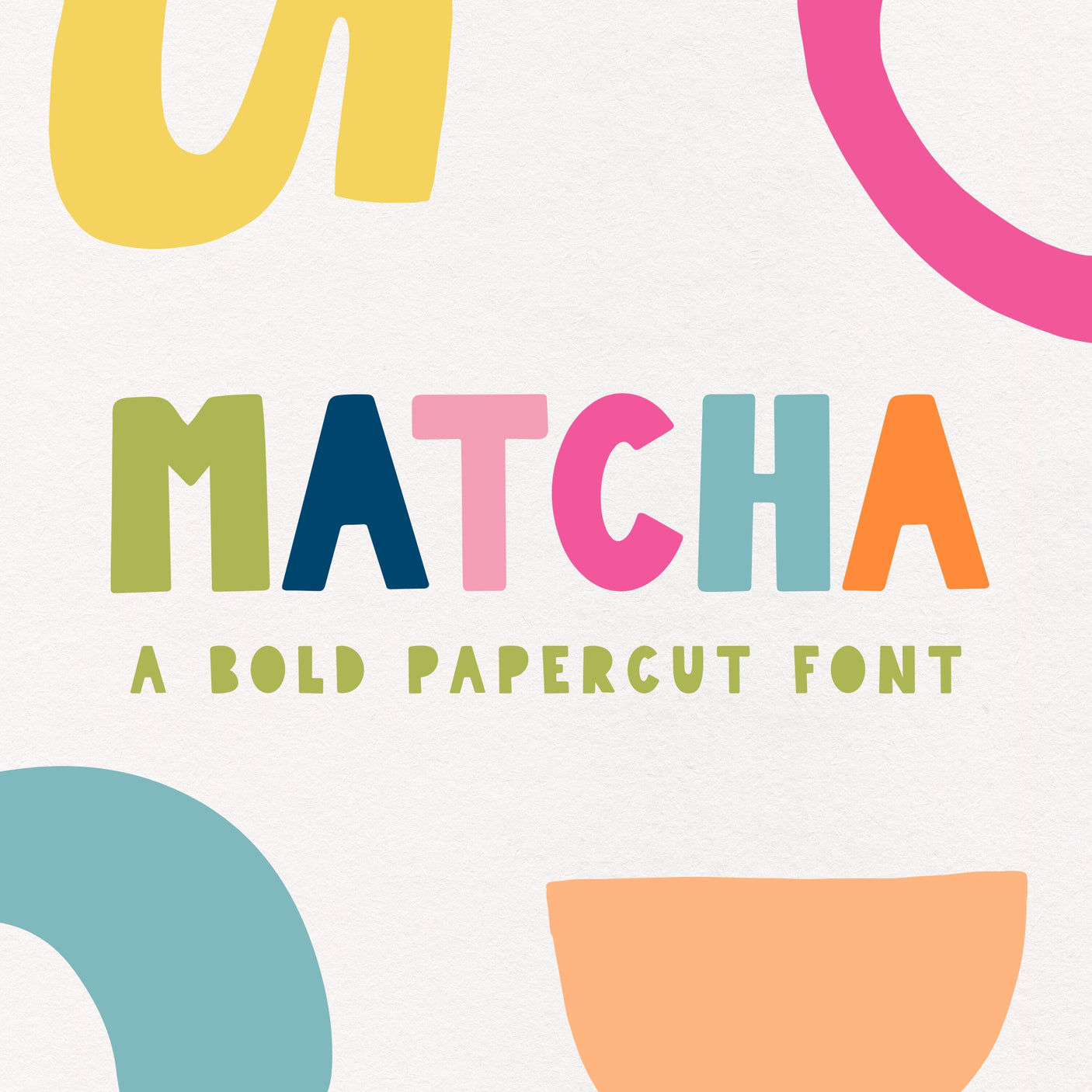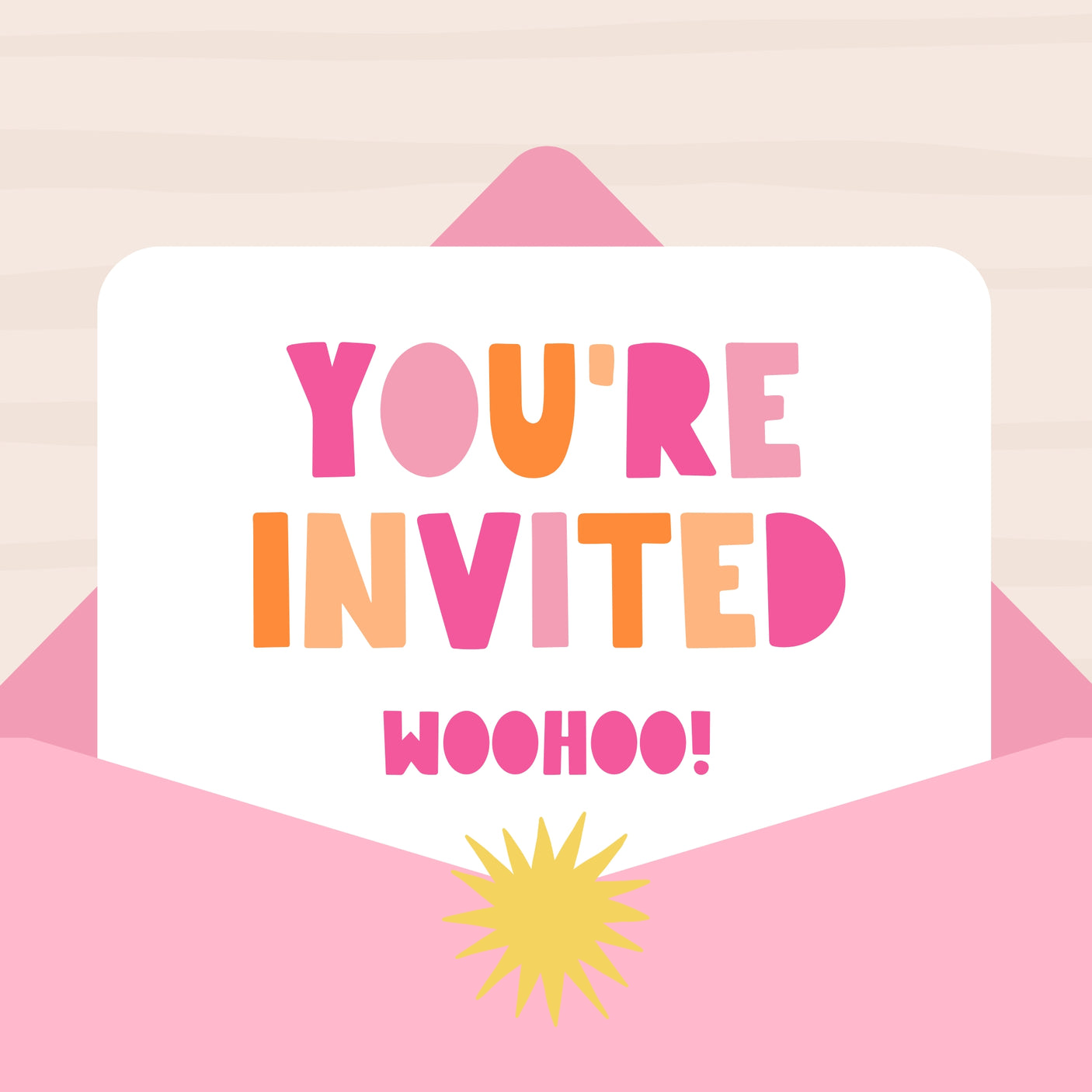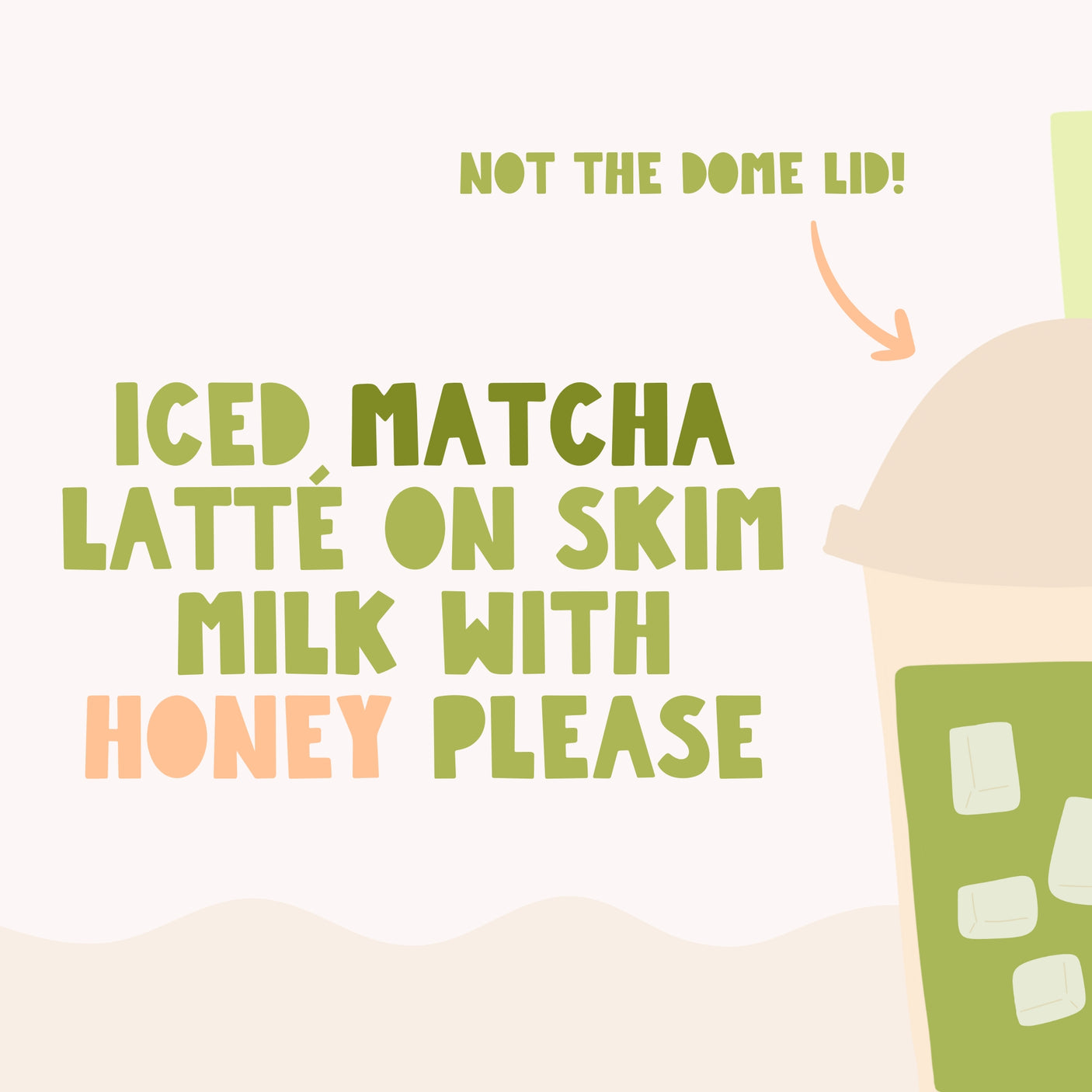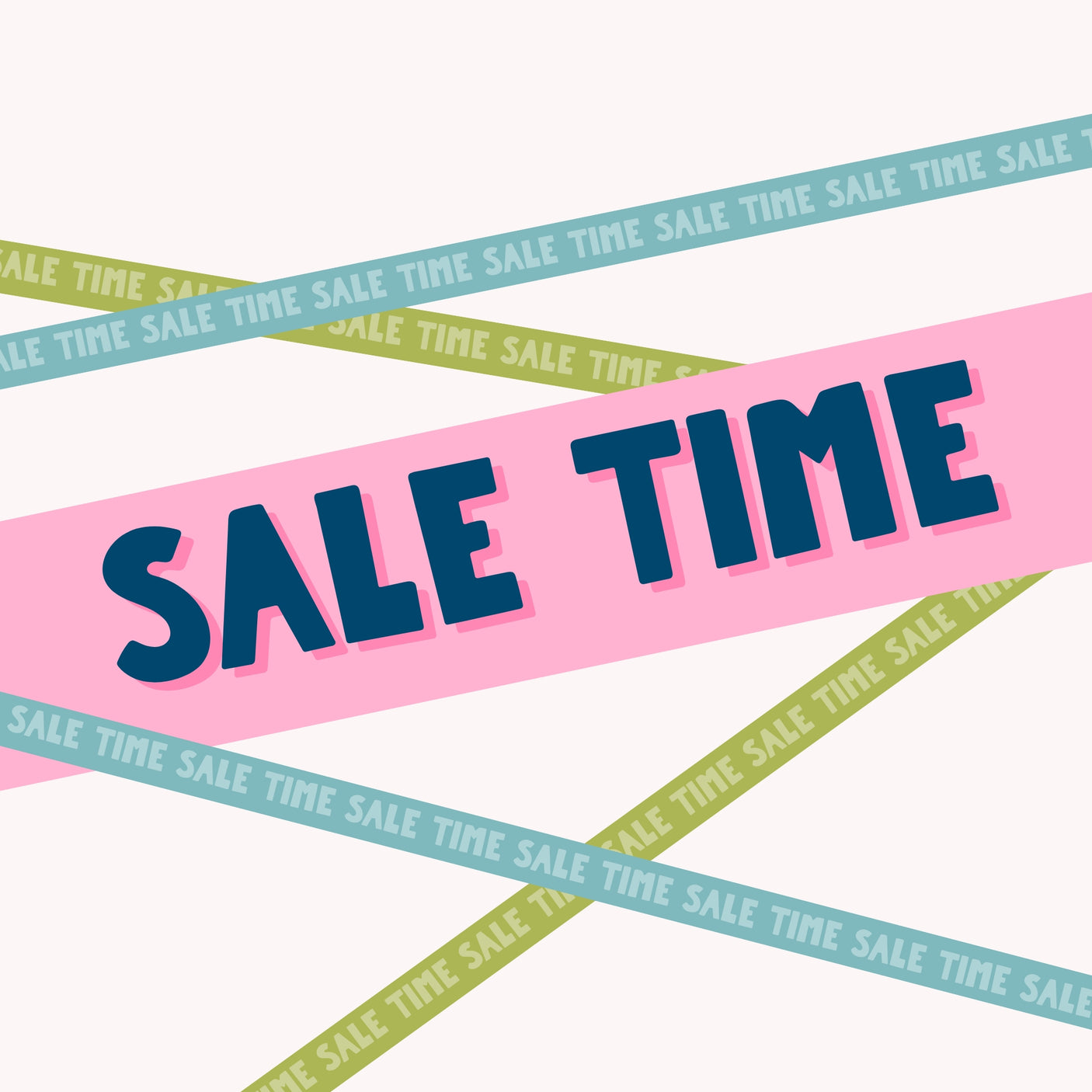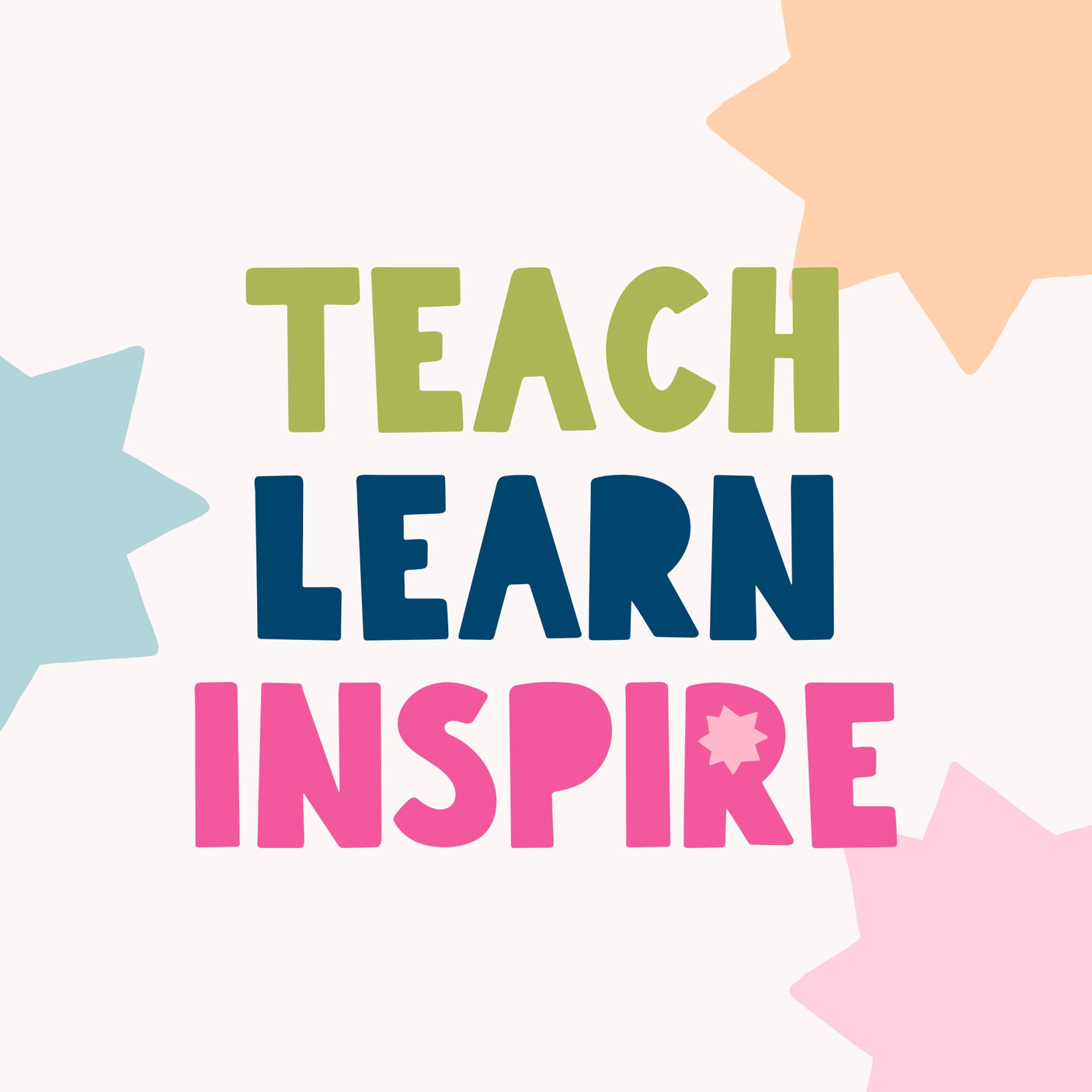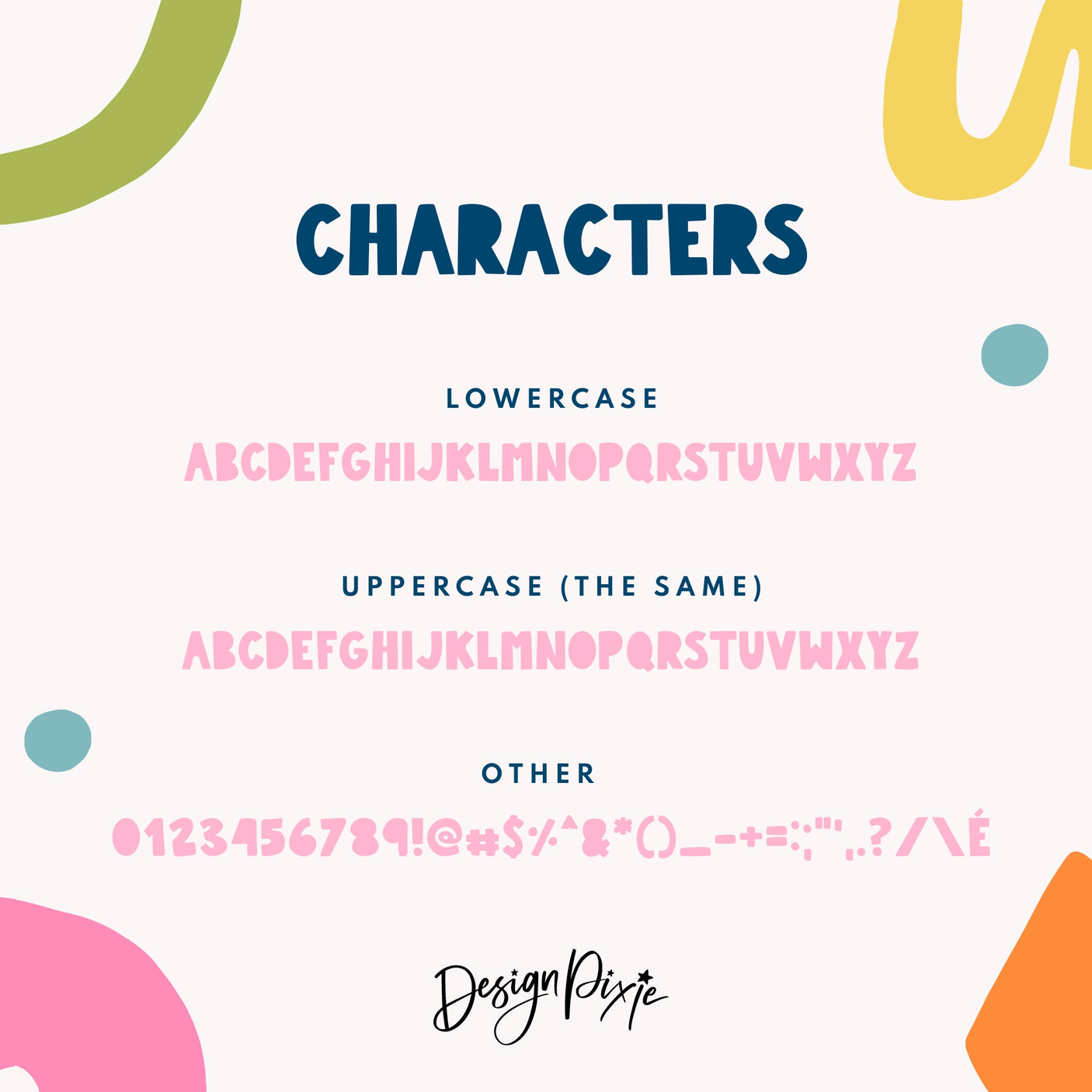
Matcha Font
Meet Matcha, a display font that’s as refreshing as its name! With its bold, hand-drawn characters and unique papercut style, this font is designed to make your design projects truly stand out.
Whether you’re crafting eye-catching posters, impactful headlines, or standout branding, Matcha brings a touch of artistry and flair to every letter. Its distinctive texture and vibrant personality ensure that your message gets noticed, making it perfect for any project that demands attention and creativity.
Elevate your designs with the fun of Matcha and make an unforgettable impression.